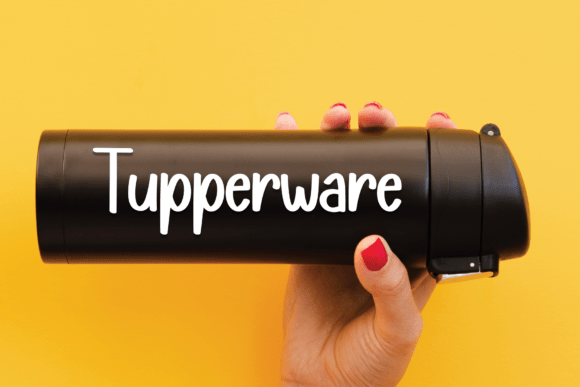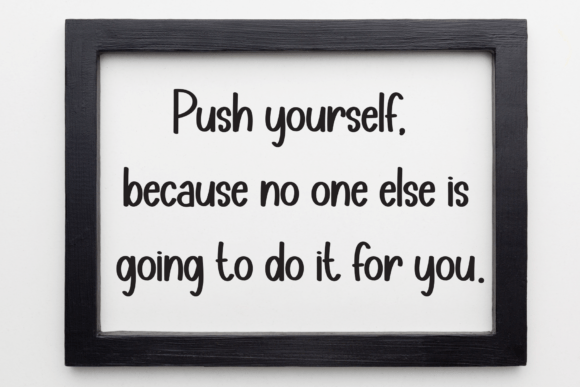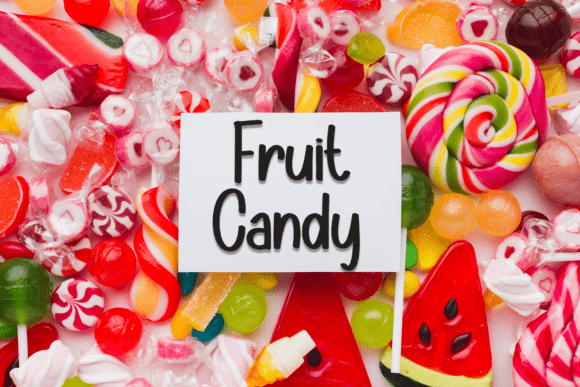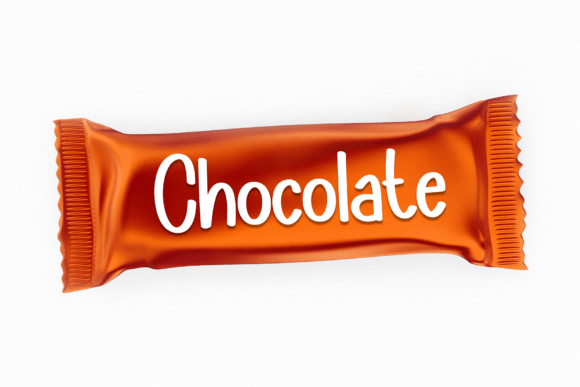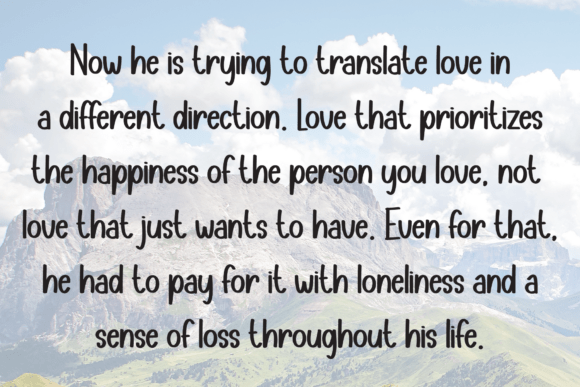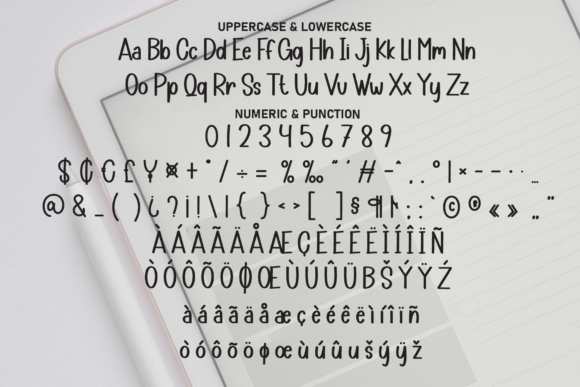
Have you ever been scrolling through your social media feeds, and suddenly, you stumble upon a post that catches your eye? Maybe it’s a beautifully designed travel blog, a quirky poster, or a fun street-style graphic. Whatever it is, you can’t help but feel inspired by the creativity and personality that shines through. As a designer, you know the importance of finding the right font to elevate your projects and make them truly stand out.
Enter Digital Planner Font, a bold and rounded display font with a casual handwritten feel that’s perfect for adding a touch of personality to your designs. Whether you’re working on a branding project, a travel blog, or a poster, Digital Planner Font is sure to bring a smile to your face and a touch of fun to your work. With its unique blend of playfulness and sophistication, this font is a valuable addition to any designer’s toolkit.
Digital Planner Font Key Features
- Unique Characteristics: Custom-designed letterforms and symbols, tailored to create a cohesive and visually appealing digital planning experience.
- Character Set: Includes a wide range of characters, including Latin, Cyrillic, and Greek alphabets, as well as mathematical symbols and icons.
- Weight and Style: Offers a range of weights and styles, including bold, italic, and underline, to enhance text readability and visual interest.
Designer Review: Digital Planner Font
Overall, I think Digital Planner Font is a solid choice for any digital planner enthusiast. ✨ The font’s clean and modern design makes it perfect for jotting down notes, scheduling appointments, and tracking progress. ✨ The font’s versatility also allows it to be used across various devices and platforms.
One of the standout features of this font is its readability. ✨ The font is clear and easy to read, even at smaller font sizes, making it perfect for planning and organization.
- ⚠️ Limited customization options: While the font itself is clean and modern, there are limited options for customization, which may not be ideal for users who want to add a personal touch to their digital planners.
- ⚠️ Not ideal for large blocks of text: Due to its condensed design, Digital Planner Font may not be the best choice for large blocks of text or reading material.
Overall, I would recommend Digital Planner Font to anyone looking for a clean and modern font for their digital planner. While it may have some limitations, it is a solid choice for anyone looking to stay organized and focused.
The Digital Planner Font is ideal for creating digital planners, journals, and organizers for personal and professional use.
Q: Is the Digital Planner Font optimized for digital use?
Yes, the Digital Planner Font is specifically designed for digital use, with features such as hinting and kerning optimized for on-screen readability. This ensures that the font appears crisp and clear on various devices and screen resolutions.